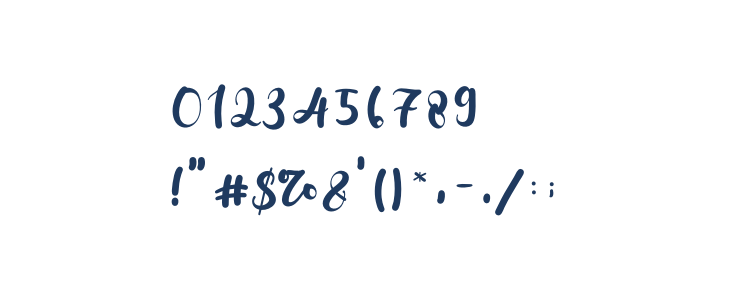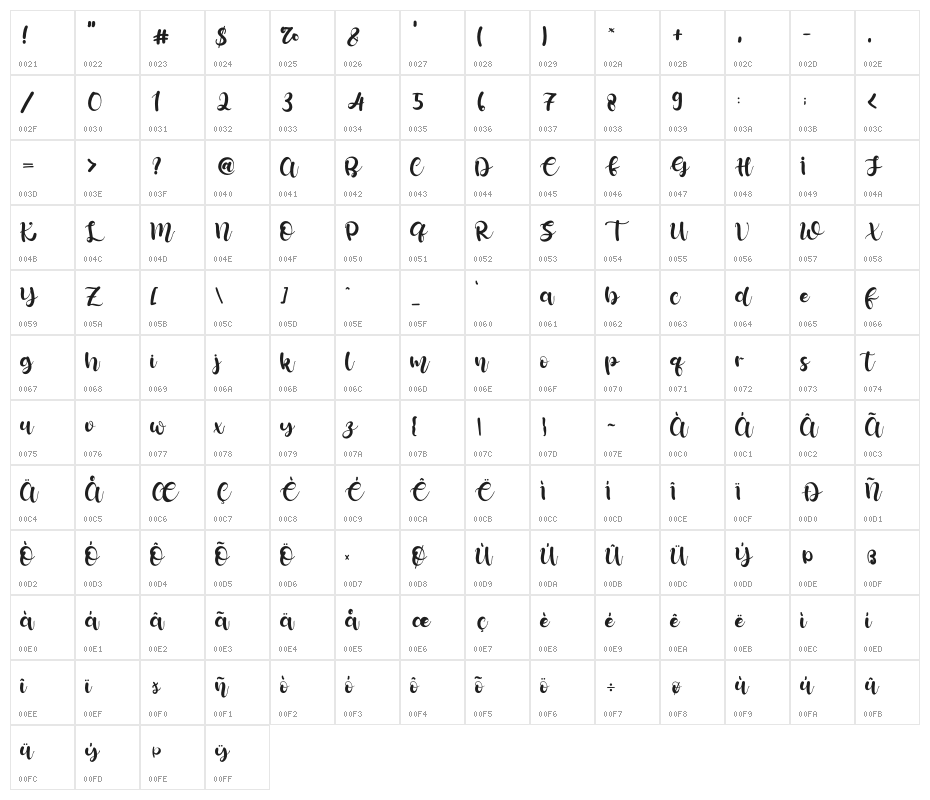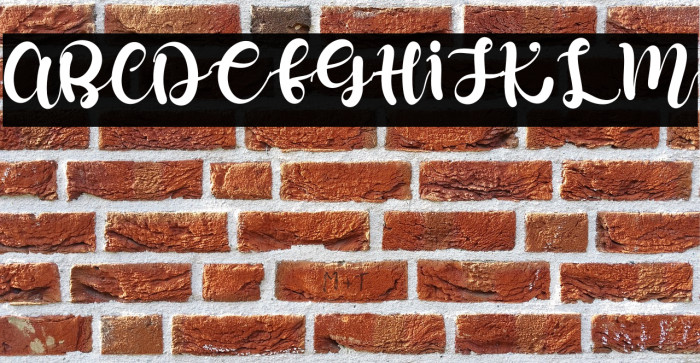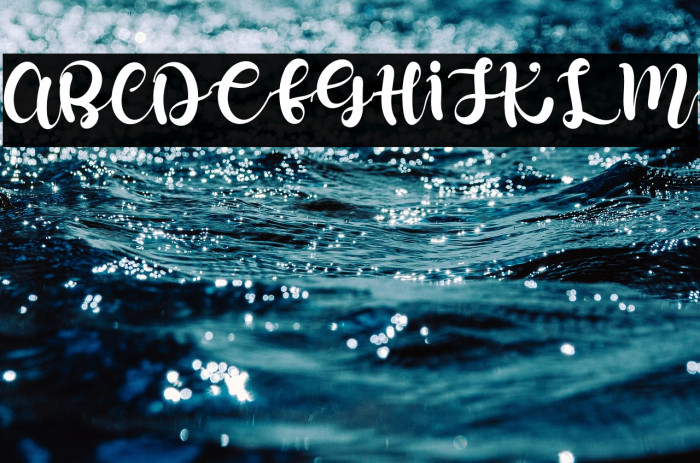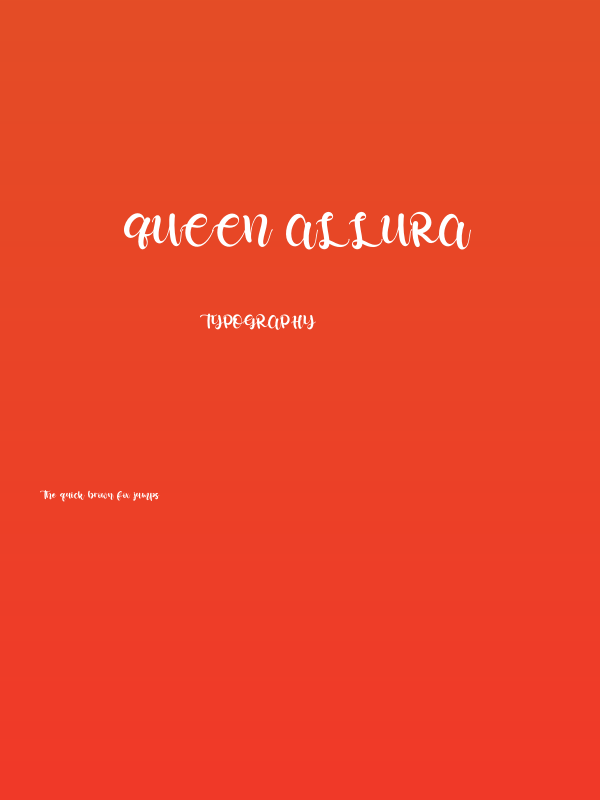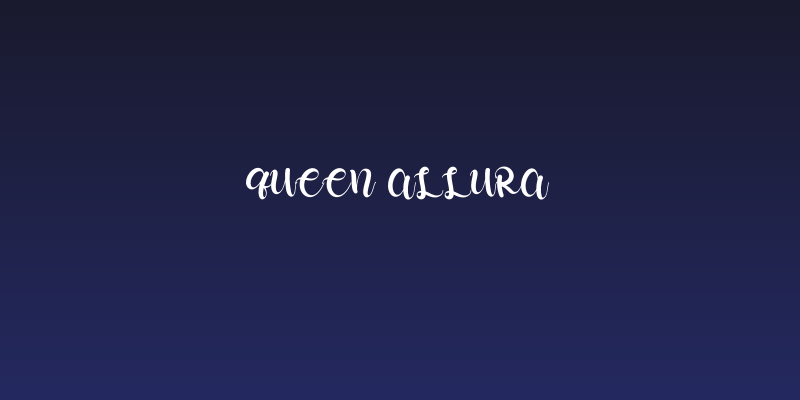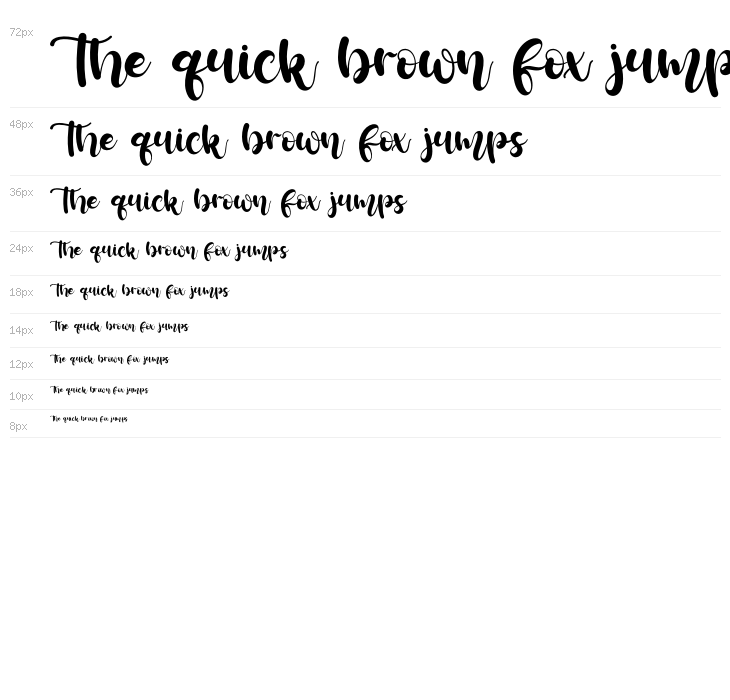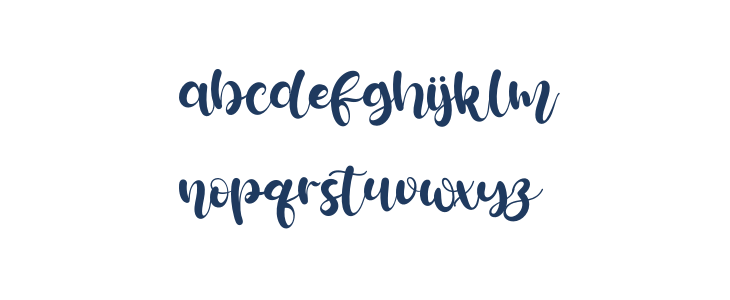
Queen Allura Font
Queen Allura Description
This font features a flowing, cursive style with elegant loops and swashes, giving it a sophisticated and artistic appearance. The characters are interconnected, creating a seamless and fluid look that is both decorative and legible. The uppercase letters are bold and prominent, while the lowercase letters maintain a consistent flow, enhancing the script's overall aesthetic. The numerals and special characters are designed to match the cursive style, ensuring uniformity across all glyphs. This font is ideal for projects that require a touch of elegance and creativity, such as invitations, branding, and decorative headings.